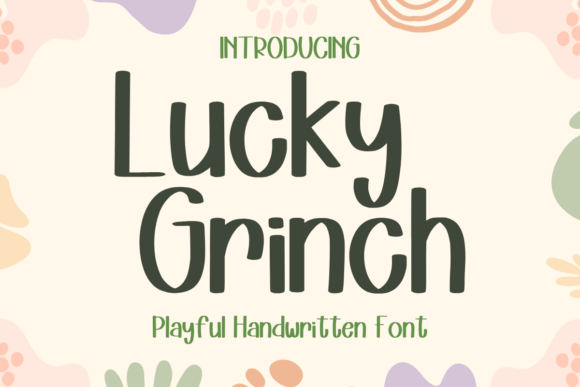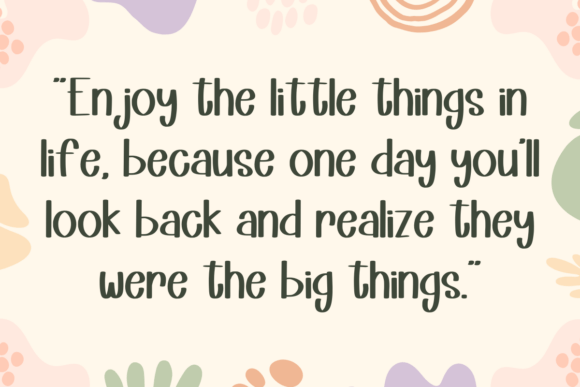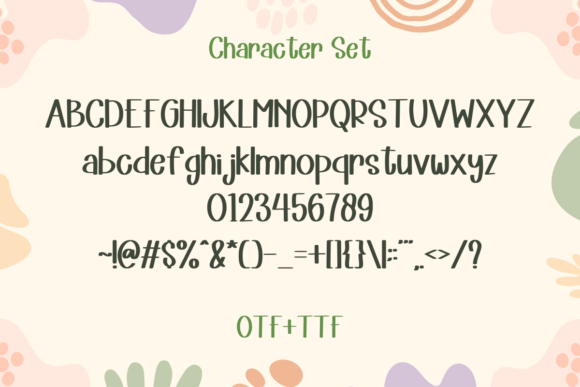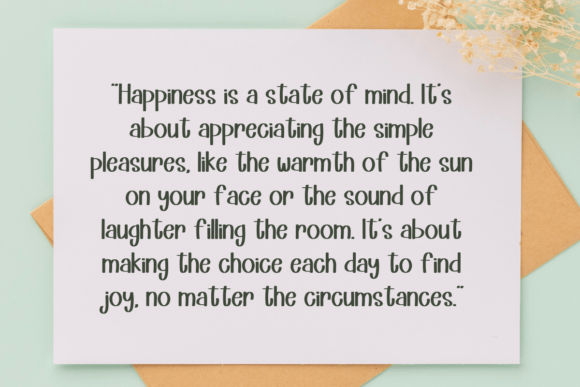
Lucky Grinch Font
About the Lucky Grinch Font
Introducing the Lucky Grinch Font, a beautifully crafted typeface designed to elevate your creative projects. Lucky Grinch is a fun and playful handwritten font that’s perfect for crafts, planners, KDP, stickers, greeting cards, and more. With its cute and friendly style, it works great for Cricut, sublimation, and creative DIY projects. Ideal for crafters, designers, and makers!
Its playful, slightly quirky nature makes it ideal for children’s books, branding for artisan products, or social media graphics. It would also add a charming touch to packaging for sweets or handmade goods. However, due to its handwritten style, it’s less suitable for body text or applications requiring high readability, such as websites or long-form documents.
Lucky Grinch pairs well with clean sans-serif fonts like Open Sans for a balanced contrast, or with a more geometric sans-serif like Montserrat for a modern feel. A subtle serif like Lora could also add a touch of elegance while retaining the overall friendly vibe.
The font’s core personality is best described as cheerful and approachable, making it a great choice for projects needing a friendly and informal tone.
Lucky Grinch Font Usage Examples
Lucky Grinch Font Example